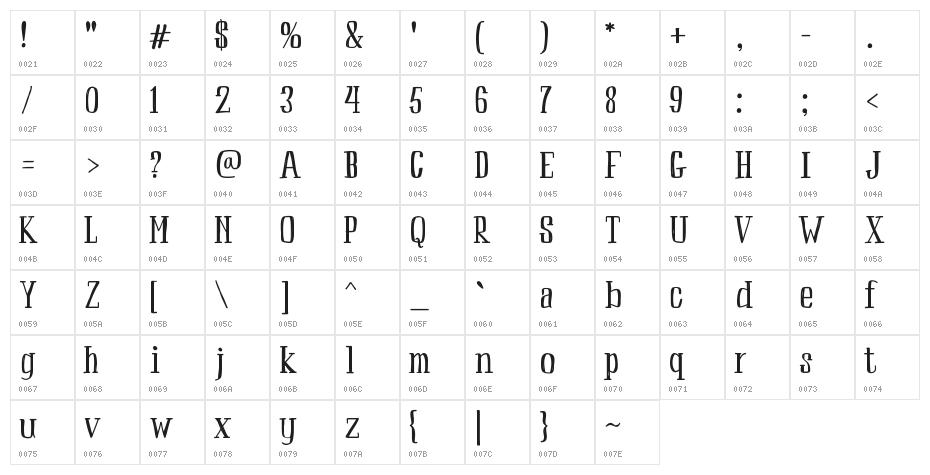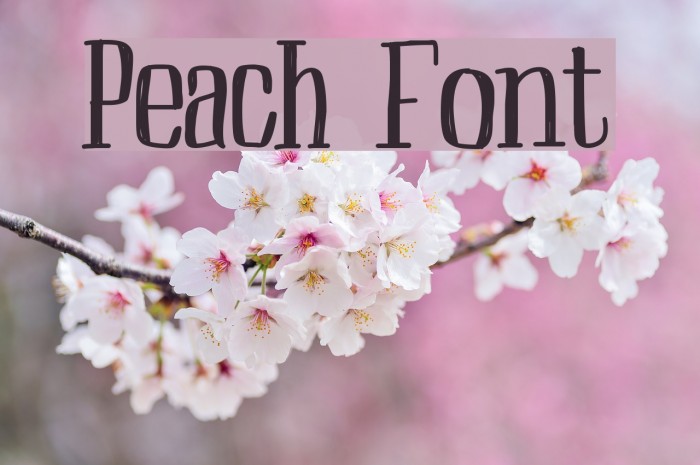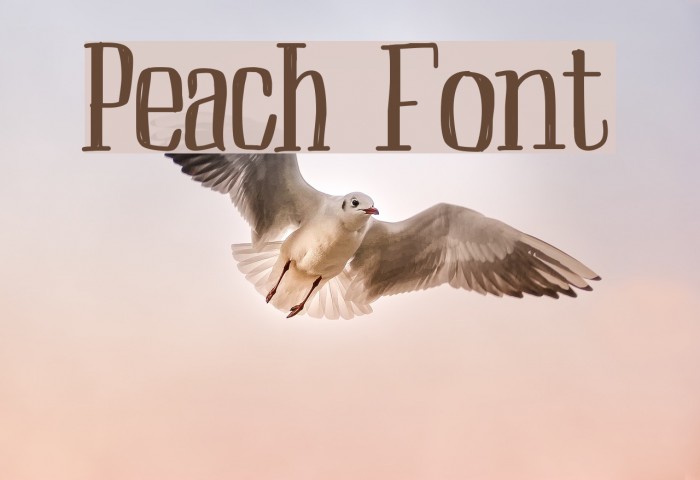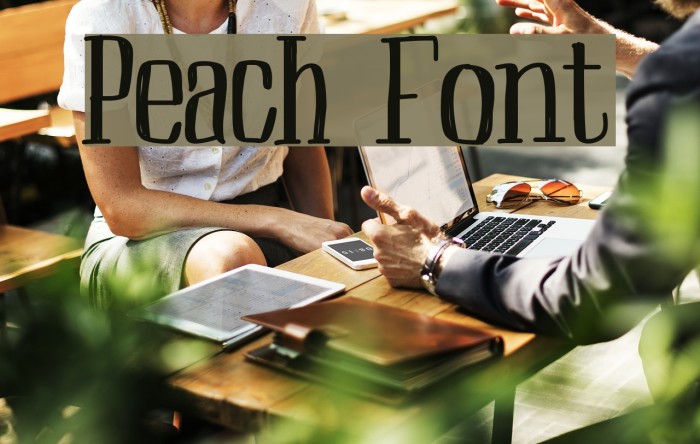
Peach Font
Peach Description
This font features a unique blend of vintage and modern elements, characterized by its tall, narrow letterforms with subtle serifs. The uppercase letters exhibit a strong presence with slightly exaggerated vertical strokes, while the lowercase letters maintain a consistent flow with rounded edges. The numerals are distinct and easily readable, complementing the overall style. Special characters are designed to match the font's aesthetic, adding versatility for various uses. The font's design is both eye-catching and functional, making it suitable for a wide range of creative projects.
| Proposed Projects | Ideal for branding, poster design, book covers, and vintage-themed projects. |